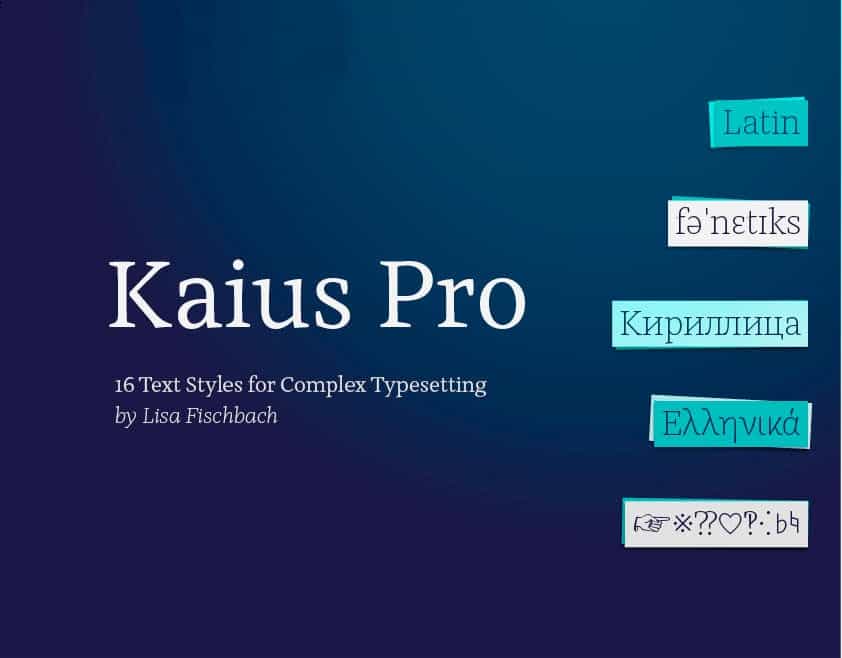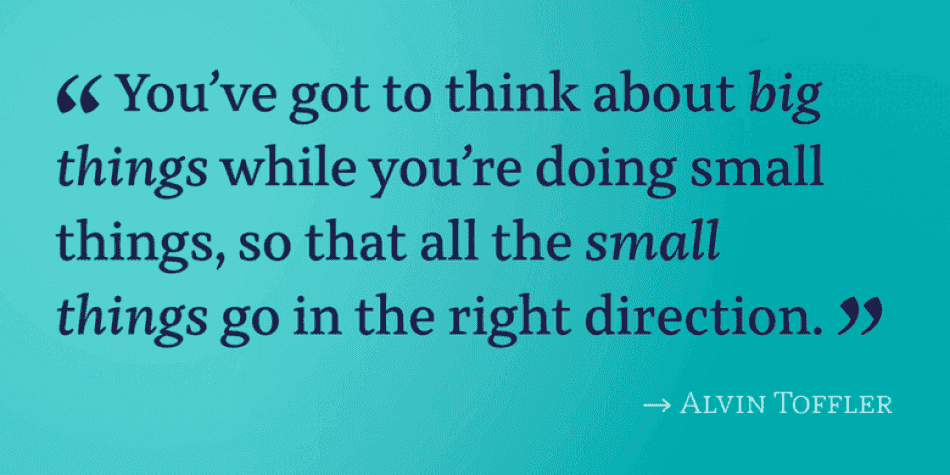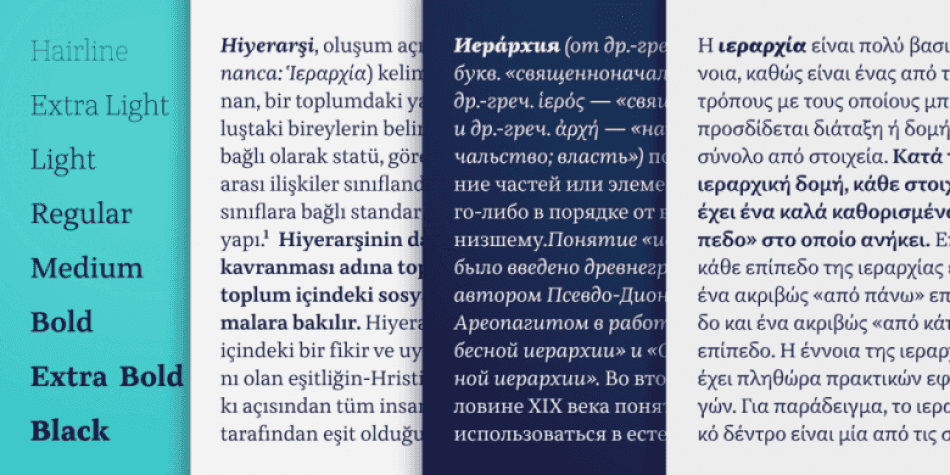
Kaius Pro is an elegant typeface for text. Conceived as an academic typeface, Kaius can accommodate small size text with intricate detailing; making it suitable for complex structures, languages and character needs easily. Kaius goes beyond being just an innovative alternative to conventional text typefaces.